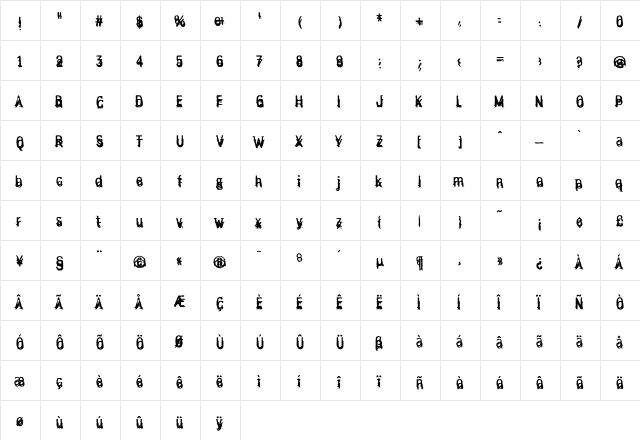
IndecisionCompressed Regular
Design Context for IndecisionCompressed Typeface
IndecisionCompressed is a composed and adaptable typeface that performs quietly and consistently across a wide range of design contexts.
Pro Tip: Use IndecisionCompressed in both headline and body roles to test its range before committing to a single application.